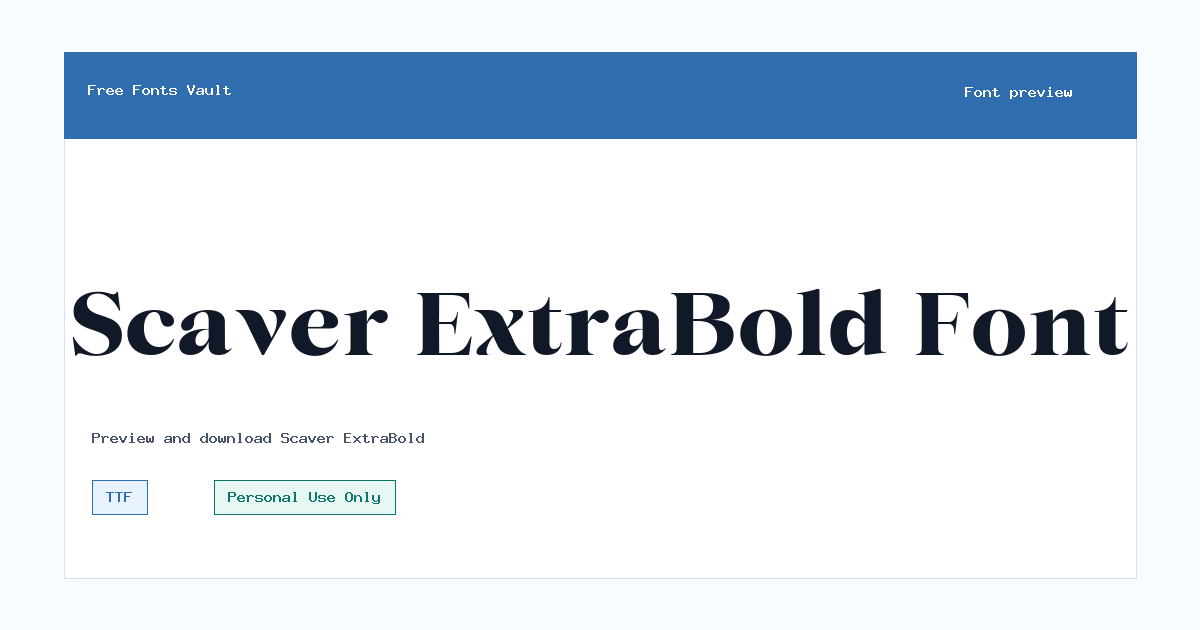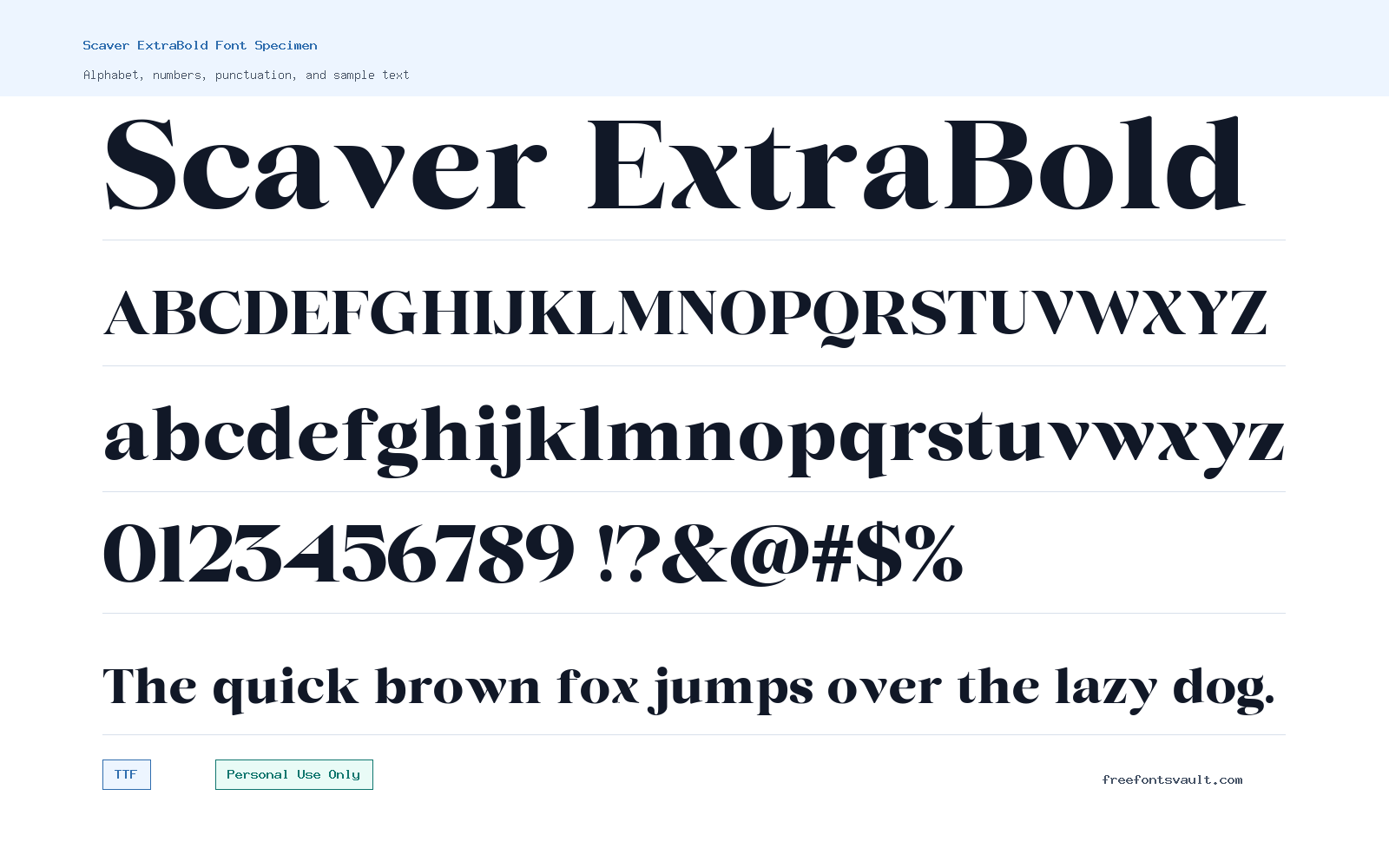
Scaver ExtraBold
- Designer Glyphminds Studio (Graphicted.Co)
Scaver ExtraBold is a bold serif font with a polished display look. It is a strong choice for visitors who want to test headline lettering, stylish titles, and short pieces of text before downloading the font for personal use.
About Scaver ExtraBold
Scaver is identified as a modern serif font family, and this page focuses on the ExtraBold weight. The available files include an upright ExtraBold style and an ExtraBold Italic style, both in TTF format. The design direction is best treated as a display serif: it can bring weight, contrast, and a refined mood to larger text, especially when the words are short enough for the details to stay clear.
Use the preview box to test the exact words you plan to set. ExtraBold serif fonts can look impressive in logos, editorial-style headings, invitations, packaging mockups, and social graphics, but they are usually less comfortable for long paragraphs. Try your title in both the upright and italic styles, then check spacing, punctuation, numbers, and mixed-case text. If the letters feel too dense at a small size, reserve Scaver ExtraBold for headings and pair it with a simpler text font for body copy.
- ExtraBold serif weight for strong titles, covers, posters, and short display text.
- Includes both upright and italic TTF files, giving you a second style for emphasis or contrast.
- Large headlines, magazine-style titles, logo drafts, invitations, and quote graphics.
- Personal design tests where a bold serif look is needed before choosing or licensing a final font.
Designer metadata names Glyphminds Studio (Graphicted.Co) as the designer/source credit for Scaver.
What is Scaver ExtraBold best used for?
It is best tested for short display settings such as headlines, logo concepts, invitations, editorial titles, posters, and stylish social graphics.
Can I use Scaver ExtraBold for body text?
It is not the safest choice for long reading. Use it for titles or short lines, then pair it with a simpler font for paragraphs.
Who designed Scaver?
The designer metadata lists Glyphminds Studio (Graphicted.Co).